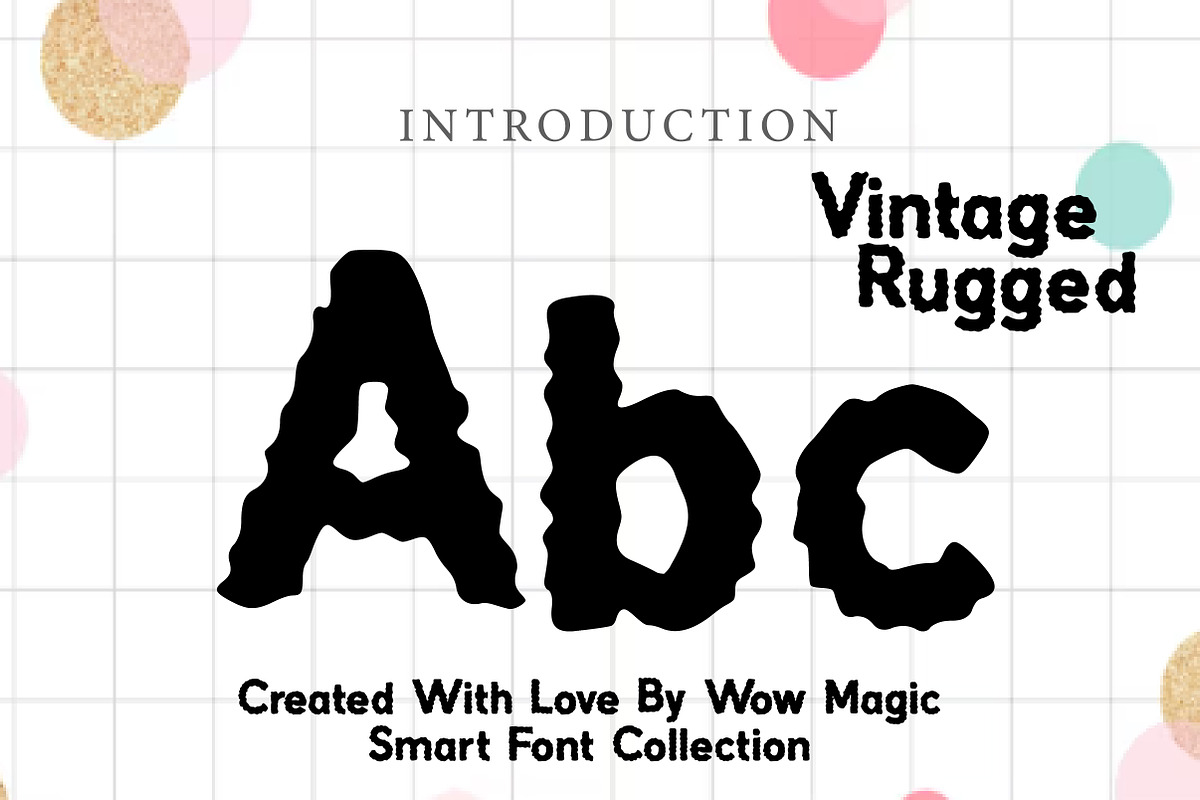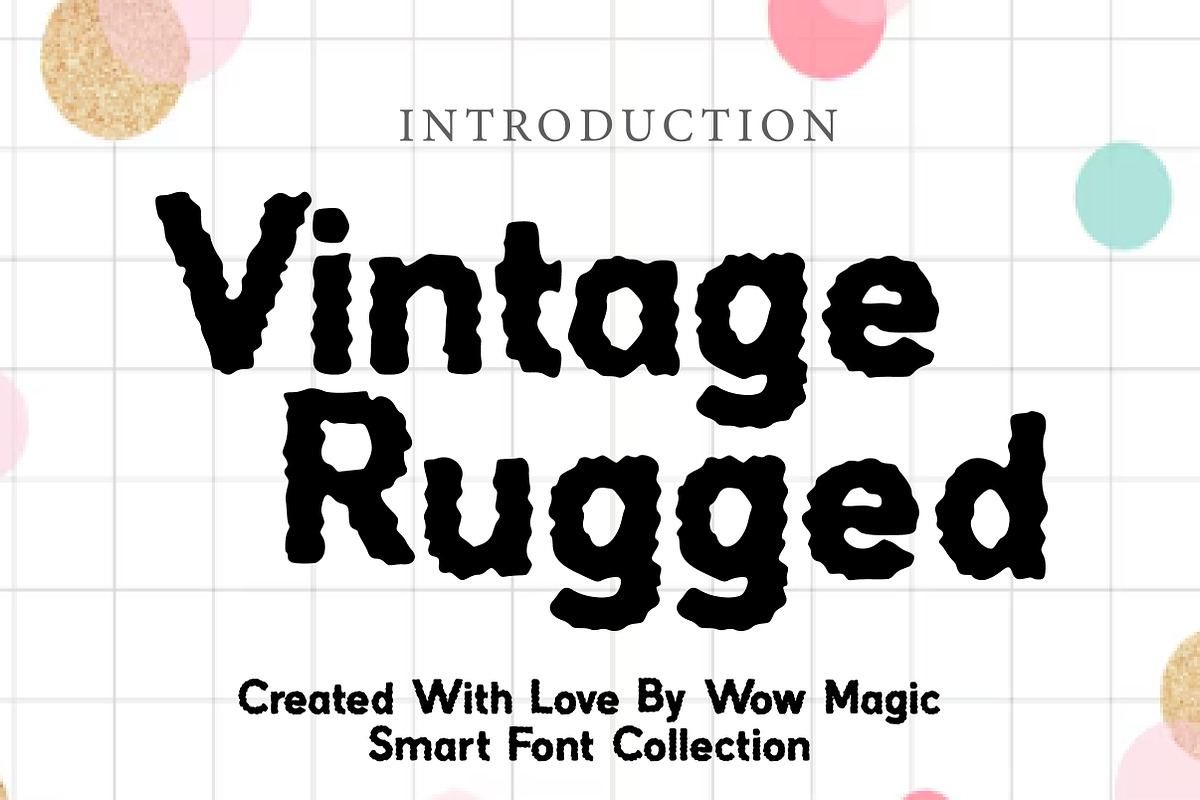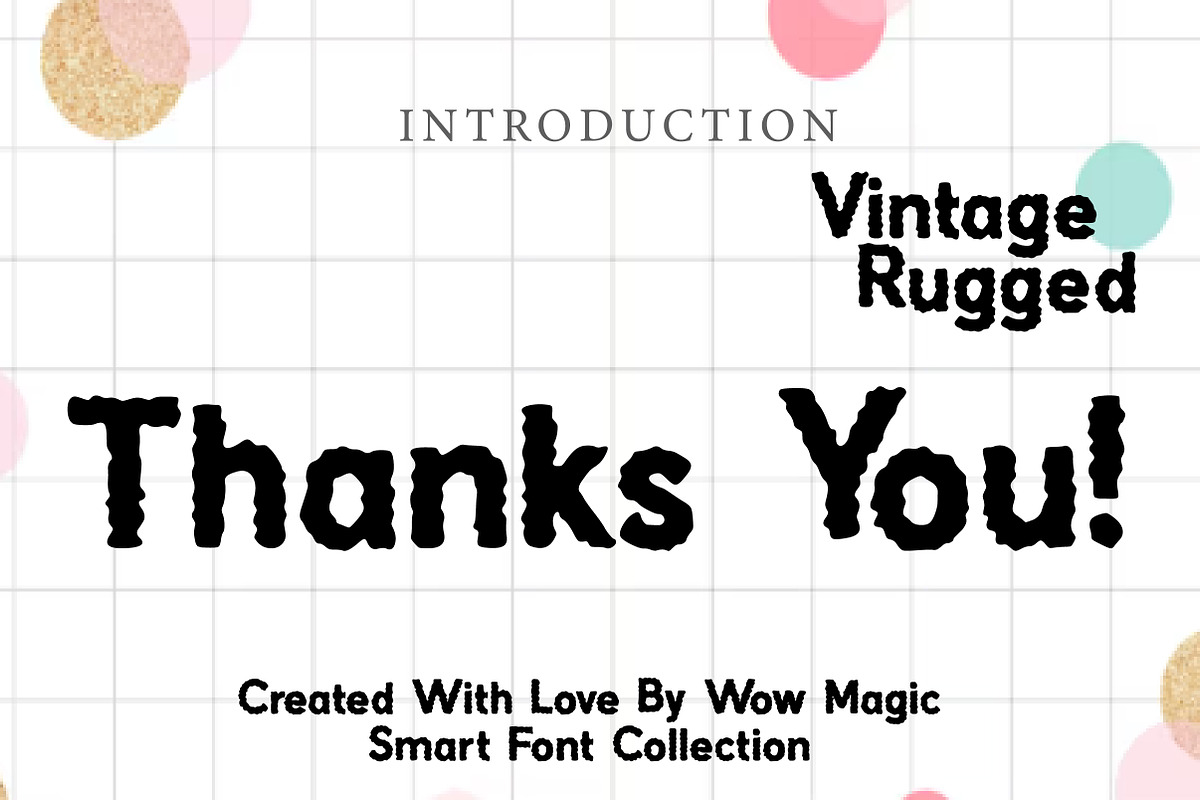
Vintage Rugged
Vintage Rugged is a bold distressed display font inspired by worn textures, retro printing, and old-school handcrafted signage. With its rough edges, weathered appearance, and strong letterforms, this typeface brings an authentic vintage character that feels raw, rugged, and full of personality.
The textured details give it a naturally aged look, making it perfect for posters, branding, packaging, labels, apparel, logos, book covers, and rustic design projects. Its bold structure keeps it highly visible and impactful, while the distressed finish adds depth, grit, and nostalgic charm.
Vintage Rugged is ideal for designers who want a font that feels classic, tough, and timeless. Whether you're building a heritage brand, creating a retro poster, or designing bold packaging, this font delivers a strong vintage identity with a rough handcrafted edge.